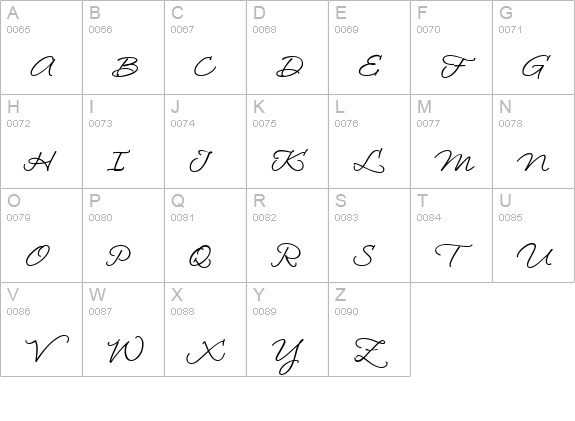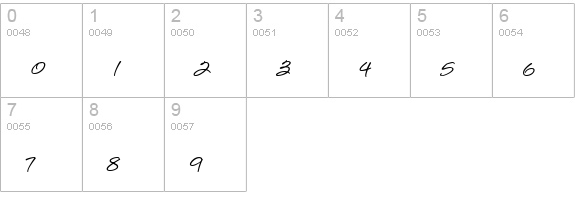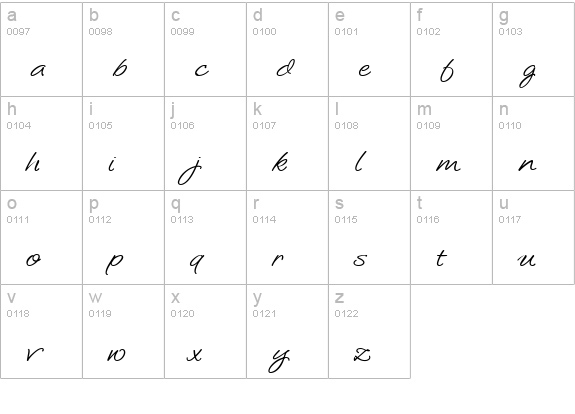
LoosieScript Font Details
LoosieScript font is a whimsical and playful typeface that adds a touch of charm and personality to any design project. With its flowing lines and quirky curves, LoosieScript brings a sense of fun and creativity to your text. This font is perfect for use in invitations, greeting cards, logos, and more, where you want to convey a sense of warmth and friendliness. Whether you're crafting a handmade card for a loved one or designing a fun logo for a creative business, LoosieScript is sure to bring a smile to your audience's face. Best of all, LoosieScript is available for free download at FontsMarket.com, making it easily accessible for all your design needs. So go ahead and add a touch of whimsy to your projects with LoosieScript font today!